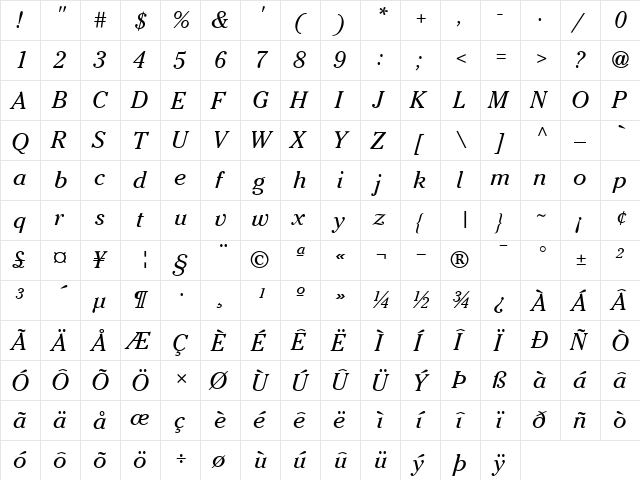
ITCCheltenham-Book BookItalic Font Preview
ITCCheltenham-Book BookItalic
ITCCheltenham-Book BookItalic Font Details
Design Context for ITCCheltenham-Book Typeface
ITCCheltenham-Book offers clean, dependable letterforms without strong stylistic allegiance, making it a practical choice for designers who need flexibility. Its italic angle brings a sense of urgency and motion to the letterforms.
Pro Tip: Use ITCCheltenham-Book for emphasis, pull quotes, and subheadings where its slanted energy can add rhythm to the layout.